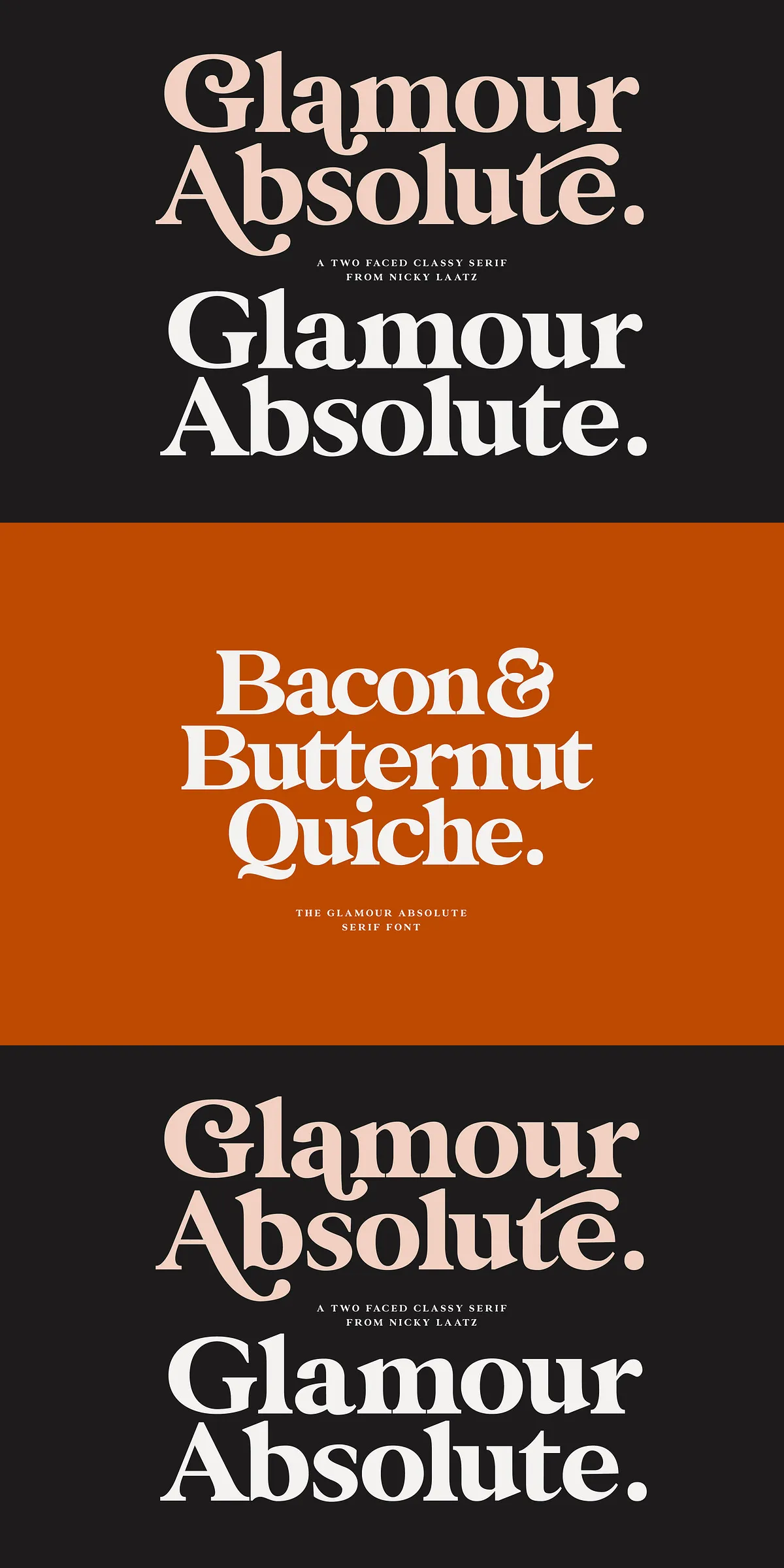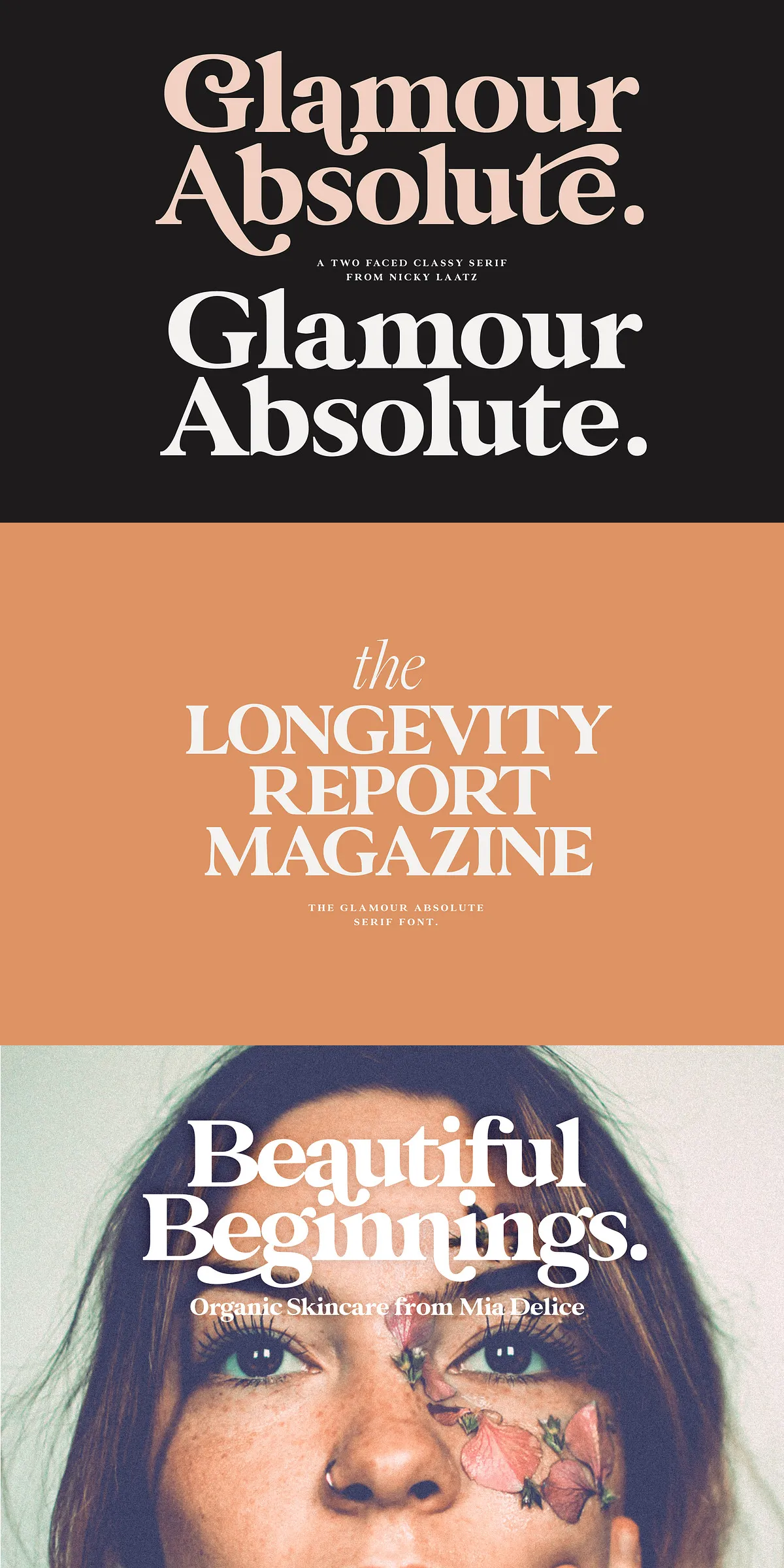
Step into the spotlight with Glamour Absolute—a revolutionary bold serif font engineered to shine in two worlds at once. One typeface. Two personalities. Master the art of contrast with a design that transforms from sleek, contemporary elegance to rich, nostalgic retro with just a few clicks.
Embrace the Duality: Modern Chic or Vintage Retro?
What makes Glamour Absolute truly unique is its split personality. Whether you’re chasing a clean, minimalist edge or a soulful, nostalgic vibe, this font adapts to your vision.
For Vintage Retro Aesthetic
Dive into the past with a curated selection of alternate letters, ligatures, and stylistic sets powered by OpenType features. Swap out basic glyphs for ornate, hand-crafted alternatives to inject vintage character. Experiment with:
- Subtle flourishes on serifs and terminals
- Extended swashes and delicate curves
- Old-school ligature pairings like ff, fi, fl, and ft
- Customizable weight—lighten or darken the retro effect based on how many alternates you use
The result? A warm, tactile feel reminiscent of 1970s magazine covers, vintage film posters, and retro fashion branding. Perfect for creating instant nostalgia without sacrificing typographic quality.
For Modern Chic Style
Want to keep things sharp and current? Use the standard character set. Let the clean, confident lines and balanced spacing speak for themselves. Glamour Absolute’s bold forms stand tall in minimalist layouts, luxury branding, and editorial headlines.
Enhance your design by adjusting letter spacing and tracking—a subtle tweak that instantly elevates sophistication. Whether used in a single word or a full paragraph, it commands attention with quiet authority.
Unmatched Versatility for Every Project
Glamour Absolute isn’t just a font. It’s a dynamic toolset for creative professionals across industries:
- Magnitude Magazine Covers: Make headlines pop with bold, expressive typography that captures emotion and intent.
- Wedding Invitations & Stationery: Combine vintage elegance with modern clarity—ideal for romantic, timeless designs.
- Brand Identity & Logos: Create a strong visual voice that feels both bold and refined.
- Poster & Event Design: Capture attention at concerts, art shows, fashion launches, and more.
- Digital Media & Web Graphics: Use in banners, social media posts, and UI elements for high-impact visuals.
Powerful Design Features at Your Fingertips
Designed with professionals in mind, Glamour Absolute delivers advanced typographic control:
- 2 Styles: Regular Roman and Italic for enhanced typographic contrast
- OpenType Features: Access to stylistic alternates, discretionary ligatures, swash capitals, and more—via compatible design software